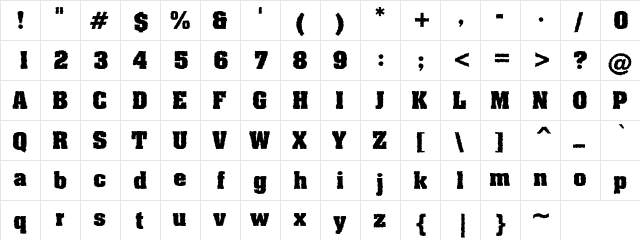
Grunge Aching Bold Regular
Design Context for Grunge Aching Bold Typeface
Grunge Aching Bold embraces imperfection — its rough, textured character adds raw authenticity to designs that want to feel lived-in and unconventional.
Suited to punk-influenced zines, underground music branding, streetwear, and raw, anti-corporate design.
Pro Tip: Pair Grunge Aching Bold with intentionally raw or lo-fi design elements. Fighting against it with overly polished surroundings will undermine its personality.